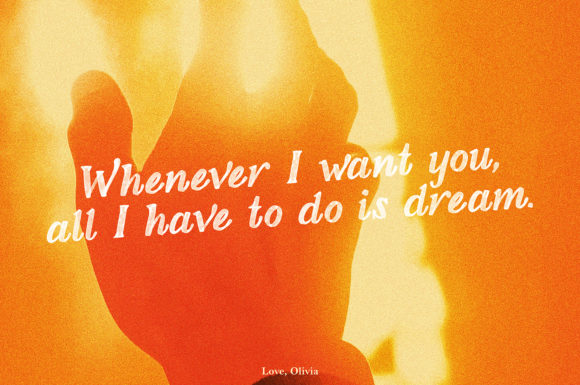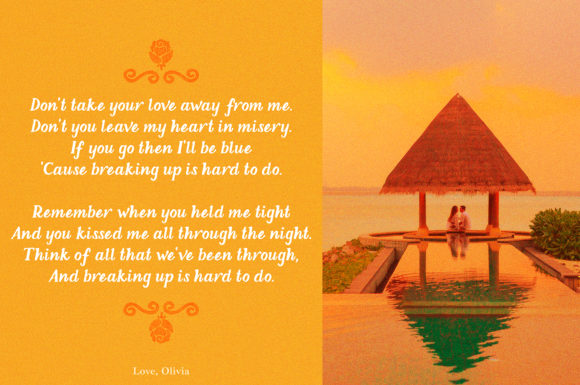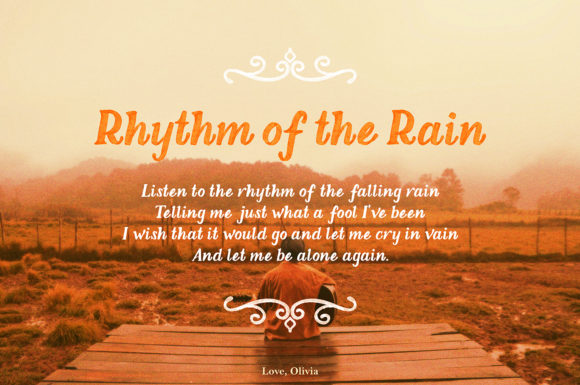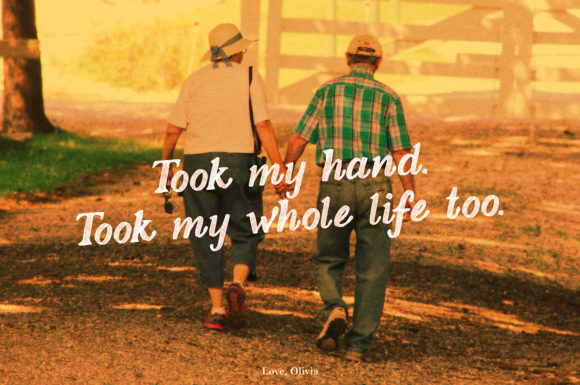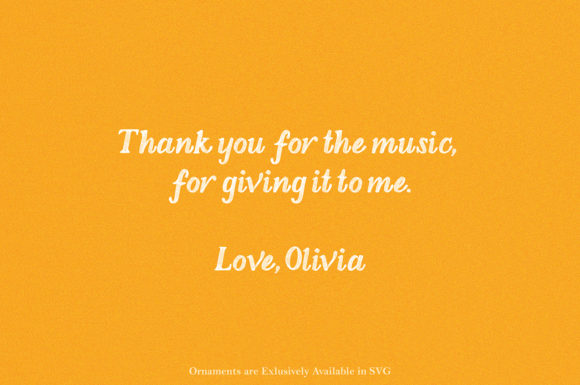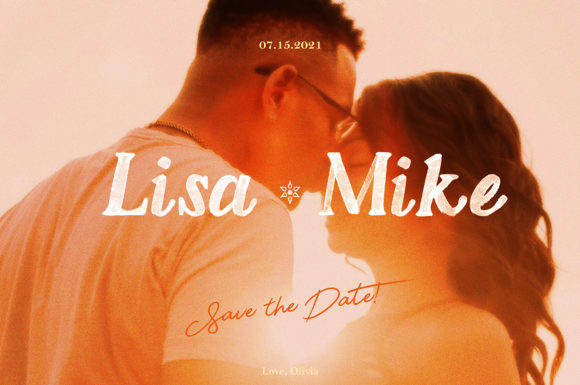
Introduction to Love, Olivia Font
Have you ever found yourself lost in the world of typography, searching for the perfect font to elevate your creative project? That’s exactly where I was when I stumbled upon the enchanting Love, Olivia Font. Its unique charm and stylish look immediately captured my heart, and I knew I had to share it with fellow designers and creatives.
As a design enthusiast, I can attest that finding the right font can make all the difference in bringing your vision to life. And that’s where Love, Olivia Font comes in – a high-quality, free download that’s perfect for creating beautiful stationery art, eye-catching social media posts, and so much more.
With its transparent background and versatile design, this font is a valuable resource for any designer looking to add a touch of elegance and sophistication to their work. So, let’s dive in and explore the world of Love, Olivia Font together!
Key Features of Love, Olivia Font
- High-quality design resource perfect for creative projects, offering a beautiful and elegant style.
- High-resolution design, suitable for print and digital applications.
- Unique characteristics include flowing connections between letters and a delicate, cursive style.
- Ideal for use in wedding invitations, greeting cards, and other creative projects where a touch of elegance is desired.
Honest Review: Love, Olivia Font
I recently stumbled upon the Love, Olivia Font, and I must say it’s a lovely addition to any designer’s toolkit. As a design resource, it offers a free download that’s perfect for creative projects.
One of the standout features of this font is its high-quality design. The transparent background allows for seamless integration into any design, and the font itself is beautiful and elegant. ✨ The delicate script style makes it perfect for adding a touch of whimsy to any project.
Here are some of the things I love about the Love, Olivia Font:
- Beautiful, high-quality design
- Perfect for adding a touch of elegance to any project
That being said, there are a few limitations to keep in mind:
- Only available in a single weight, which may limit its versatility
- Not suitable for projects that require a bold, attention-grabbing font
Overall, I’m impressed with the Love, Olivia Font. It’s a great addition to any designer’s toolkit, and I would highly recommend it for creative projects that require a touch of elegance.
Tips for Getting the Most Out of Love, Olivia Font
To get the most out of the Love, Olivia Font, use it in conjunction with other design elements to create a cohesive look. Experiment with different font sizes and colors to add visual interest to your design.
Common Use Cases for Love, Olivia Font
The Love, Olivia Font is perfect for wedding invitations, baby announcements, and other creative projects where a high-quality, elegant font is desired. Its transparent background makes it easy to use in any design software, and its free download makes it an affordable option for designers of all levels.